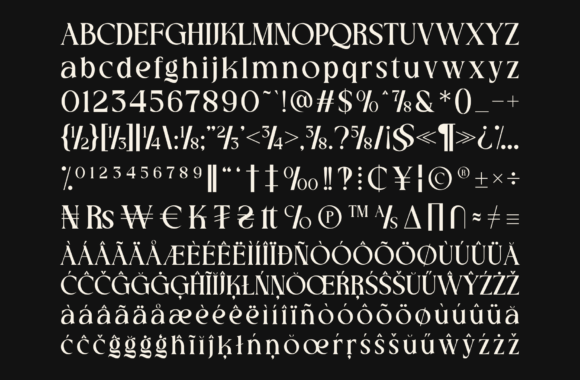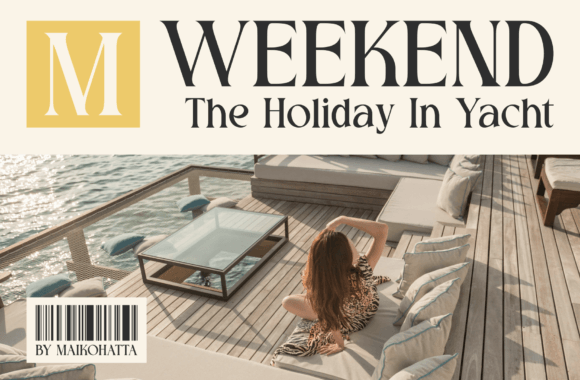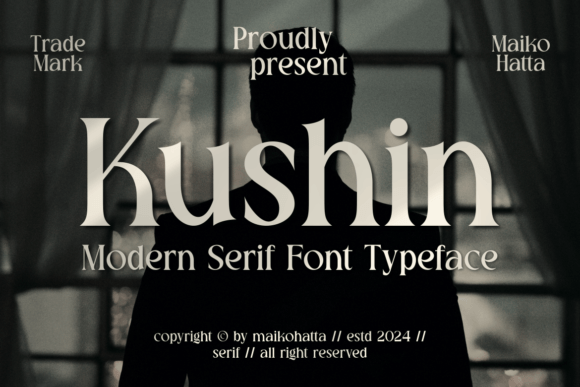
Kushin Font
Kushin Font – Modern Serif Typeface. This font features a balanced proportion of stroke thickness and fineness, creating attractive and easy-to-read visuals. This modern serif style is often characterized by a bold distinction between thick and thin lines, providing a touch that is understated but still stands out.